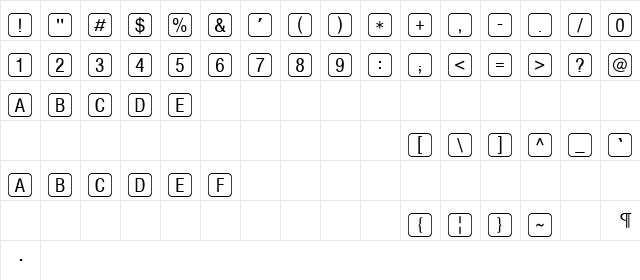
Dartworth Letter Keys Regular
Design Context for Dartworth Letter Keys Typeface
Dartworth Letter Keys is a composed and adaptable typeface that performs quietly and consistently across a wide range of design contexts.